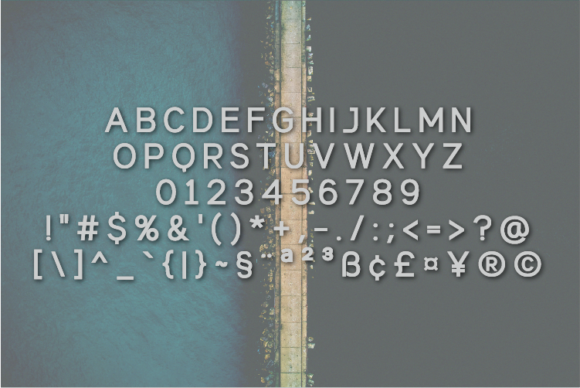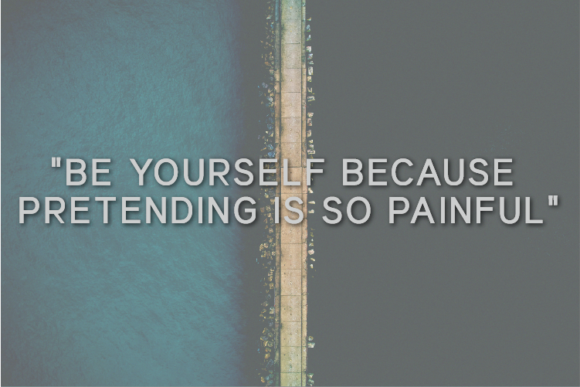
Introduction to Lettrebelle Font
Lettrebelle is a clean and simple sans serif font.
This font is ideal for writing web designs, business cards, or pretty much anything else that requires a unique touch .
Key Features of Lettrebelle Font
Why Choose Lettrebelle Font?
Lettrebelle Font offers exceptional quality and versatility, making it a valuable addition to your design toolkit. Whether you’re creating for personal projects or commercial use, Lettrebelle Font delivers professional results.